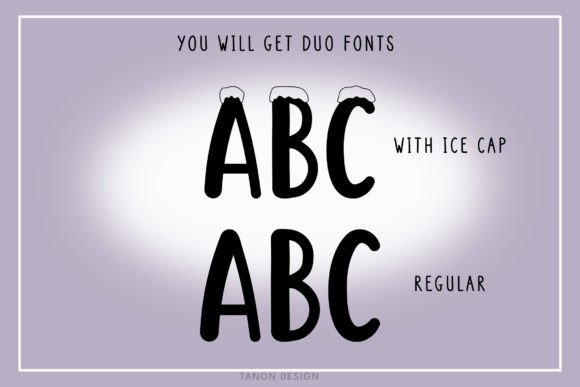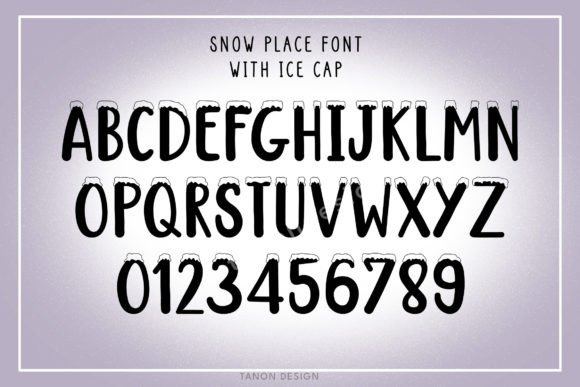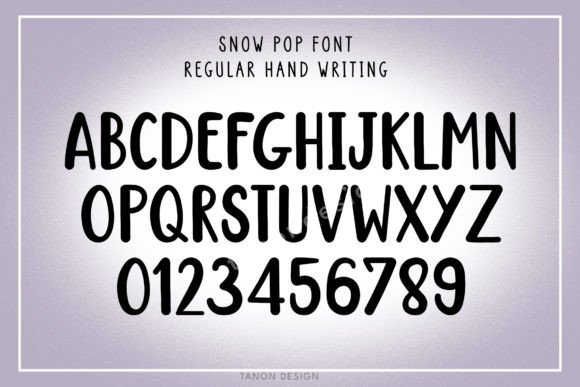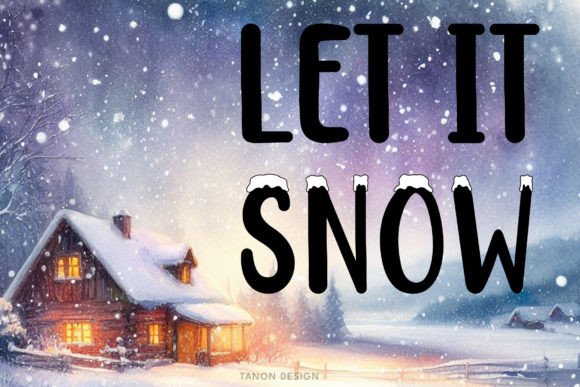
Introduction to Snow Place Font
Duo Fonts Snow Place and Snow Pop a gorgeous decorative fonts.
You will 2 fonts for Regular font and with ice cap font It will look fantastic on all your Christmas-themed designs including t-shirt designs, mug designs, digital designs, crafts, cards, and any projects.
Key Features of Snow Place Font